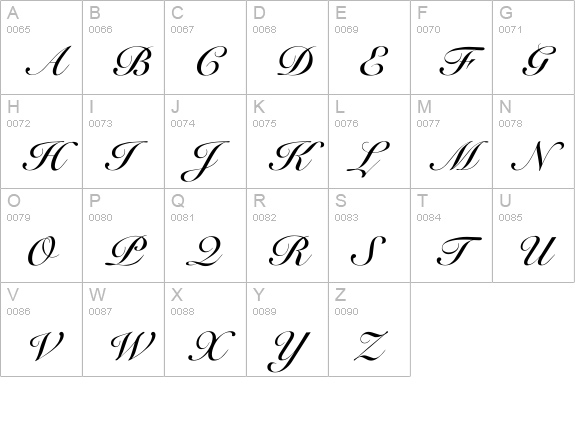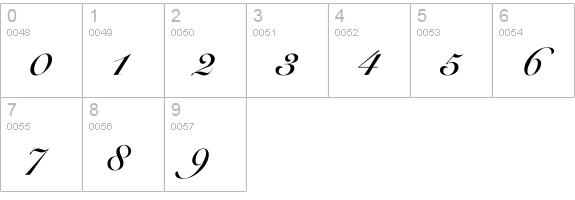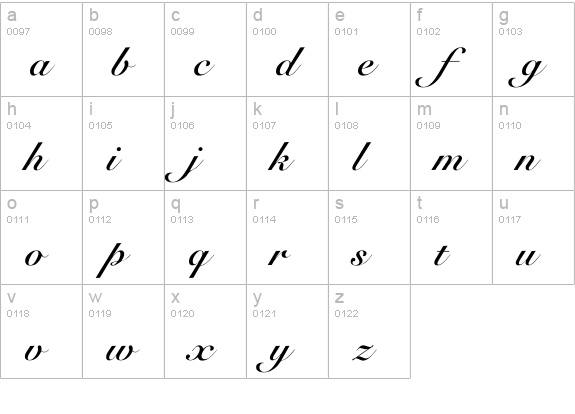
Rose Round Bold Font Details
Rose Round Bold is a strong, high-contrast variant in the Rose typeface family \xE2\x80\x94 well suited to headlines, attention-grabbing titles, and strong calls-to-action.
Introducing Rose Round Bold font, a versatile and modern typeface that exudes elegance and sophistication. With its rounded edges and bold appearance, this font is perfect for creating eye-catching designs that demand attention. Whether you're designing a logo, poster, or website, Rose Round Bold font will make your text stand out. Best of all, Rose Round Bold font is available for free download at FontsMarket.com. This means you can easily access this stunning font and incorporate it into your projects without any cost. Don't miss out on the opportunity to enhance your designs with the beauty and style of Rose Round Bold font. Download it today and elevate your typographic creations to the next level.